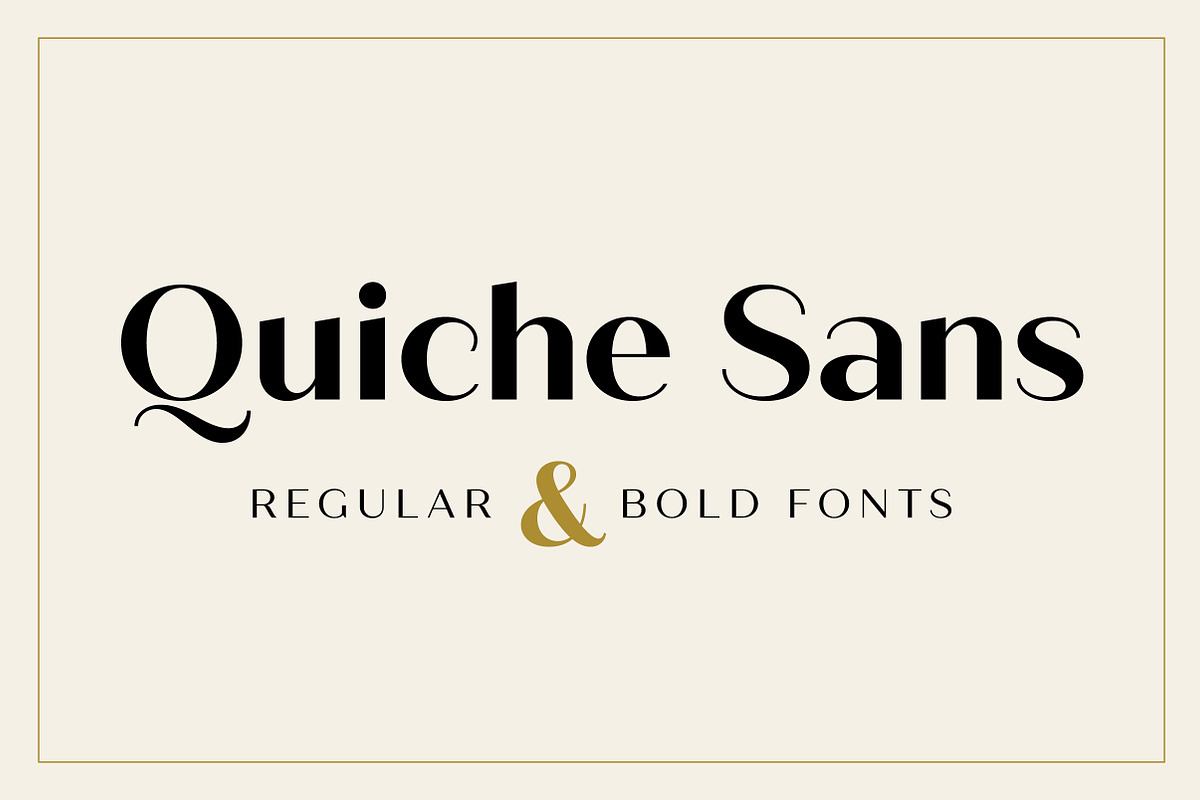
Quiche Sans Regular & Bold Fonts Free Download is a clean, contemporary sans-serif typeface designed to provide both readability and style. The regular weight offers a neutral, balanced look, while the bold version makes a strong, impactful statement. Perfect for modern branding, web design, editorial layouts, and advertising, these fonts work well for a wide variety of design projects.
Quiche Sans Regular & Bold Fonts Free Download brings clarity and elegance to your typography, making it ideal for headlines, body text, logos, and promotional materials. Whether you're designing a corporate brand, a sleek website, or bold marketing content, these fonts offer the versatility and modern feel you need. Download it today and bring professional sophistication to your next creative project with Quiche Sans!